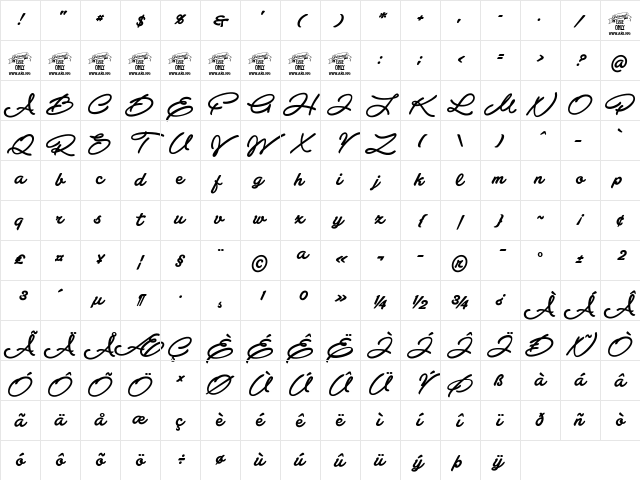
Atelas Personal Use Only Regular Free Font
Atelas Personal Use Only Regular
Design Context for Atelas Personal Use Only
Atelas Personal Use Only is a composed and adaptable typeface that performs quietly and consistently across a wide range of design contexts.